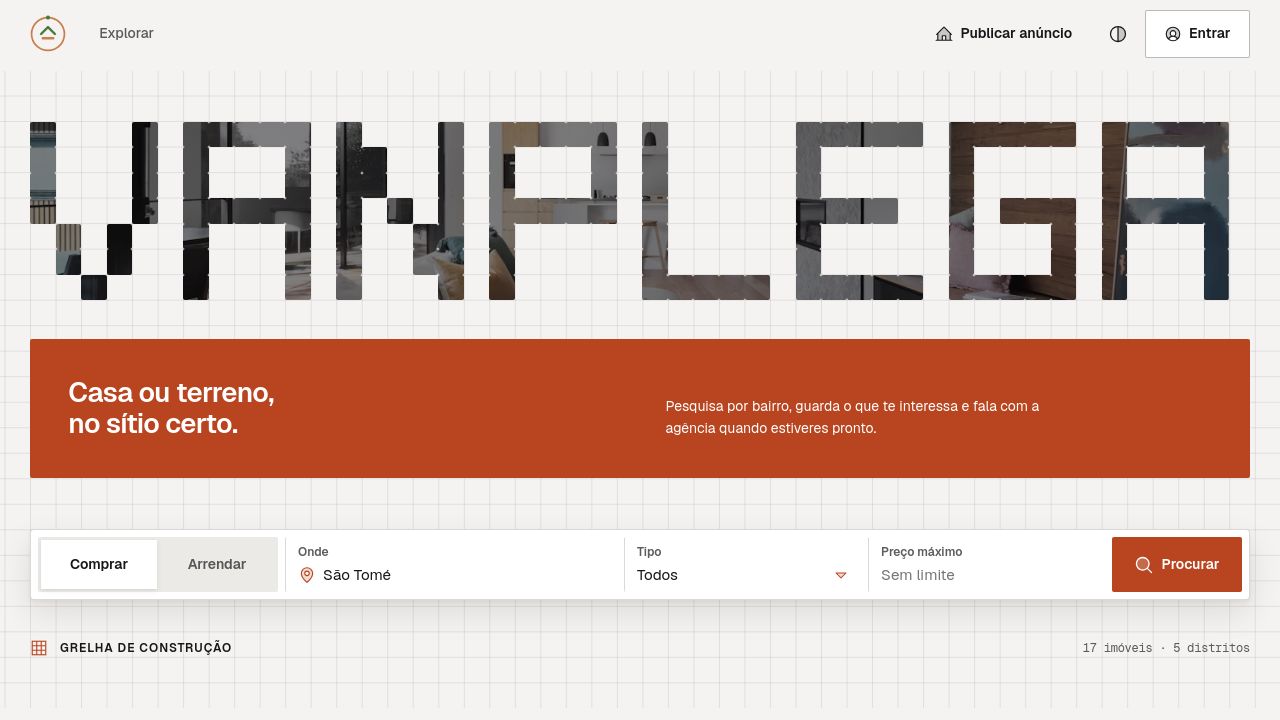
Vanplega.com uses Geist Variable and Geist Mono Variable as its main typefaces. helvetica-neue, Arial and Helvetica are declared as fallbacks. 5 fonts detected, last checked Sep 29, 2026.
Vanplega.com specializes in real estate listings in São Tomé and Príncipe, allowing users to search for houses and land by district and neighborhood. The site utilizes Helvetica Neue, Geist Mono Variable, and Geist Variable fonts, which convey clarity and precision. These font choices reflect Vanplega's commitment to providing an accessible and user-friendly experience, ensuring that visitors can easily navigate the platform while finding their ideal property.
Vanplega.com uses Geist Variable and Geist Mono Variable as its main typefaces. helvetica-neue, Arial and Helvetica are declared as fallbacks. 5 fonts detected, last checked Sep 29, 2026.
Vanplega.com primarily uses Helvetica Neue, Geist Mono Variable, and Geist Variable fonts. These selections enhance readability and user experience.
The fonts used on vanplega.com provide a unique character, with Geist Mono Variable offering a modern alternative to traditional monospace fonts and Helvetica Neue ensuring crisp legibility.
The fonts include Geist Mono Variable in weights from 100 to 900, and Geist Variable also offers a range from 100 to 900, providing versatility for various design needs.